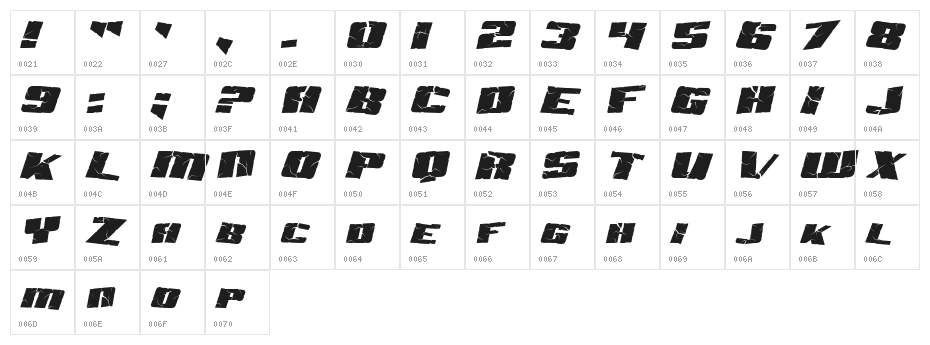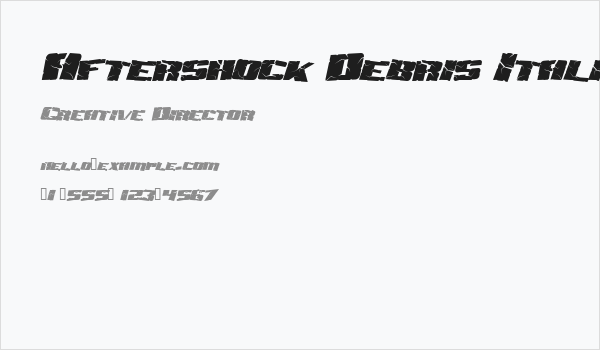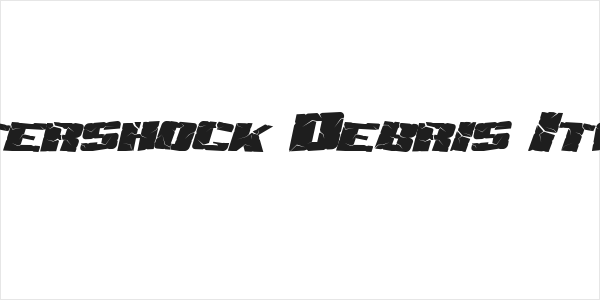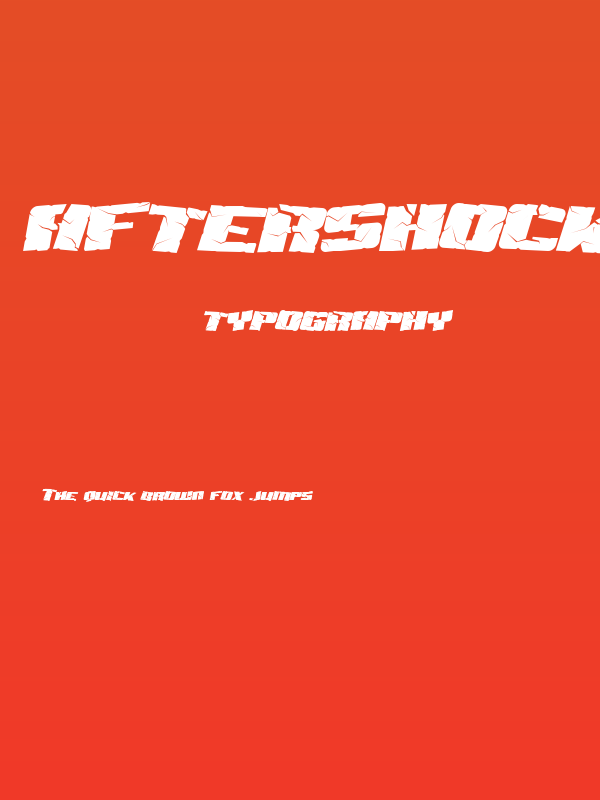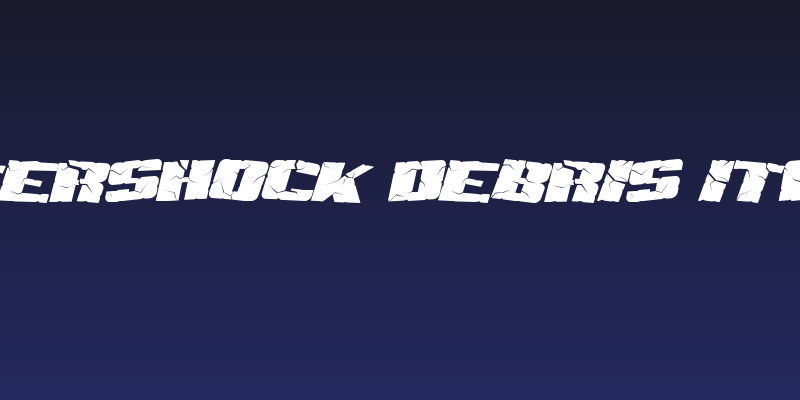
Aftershock Debris Italic Font
Aftershock Debris Italic Description
This font features a bold, fragmented design that gives the impression of shattered debris. Each character is uniquely styled with jagged edges and irregular shapes, creating a sense of chaos and movement. The italic slant adds to the dynamic feel, making it appear as if the letters are in motion. The uppercase and lowercase letters maintain this broken aesthetic, while the numbers and special characters follow suit, ensuring consistency across the entire typeface. This font is particularly striking and eye-catching, making it ideal for projects that require a strong visual impact.
| Proposed Projects | Ideal for use in posters, album covers, video game titles, and any project requiring a dramatic, impactful look. |